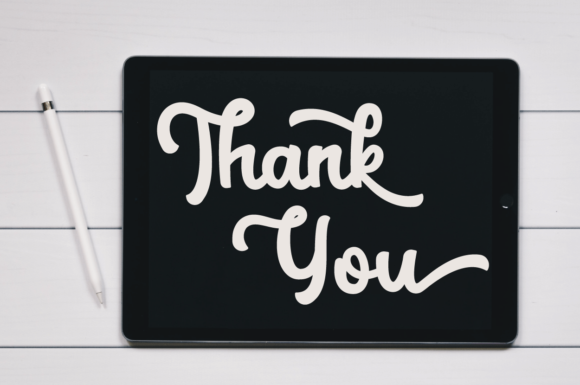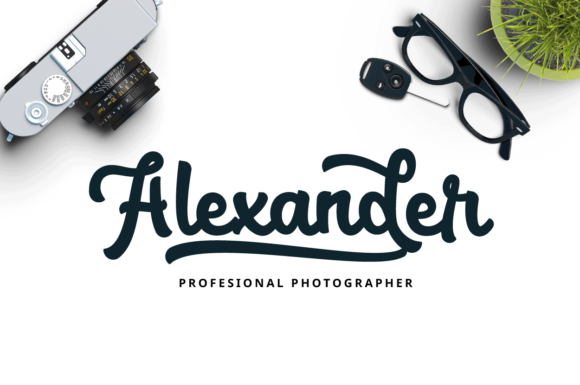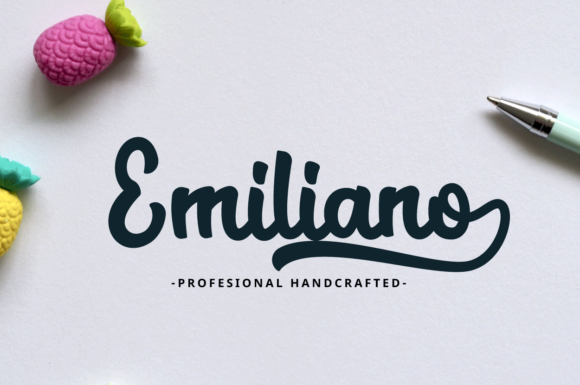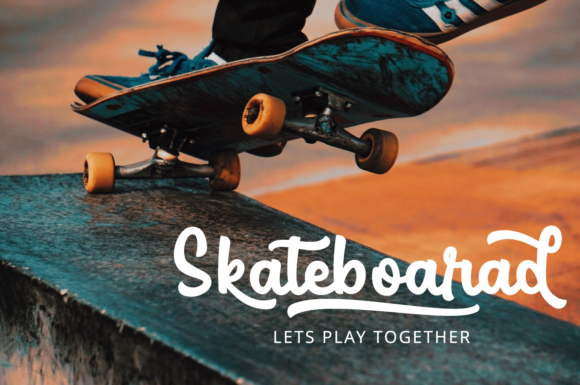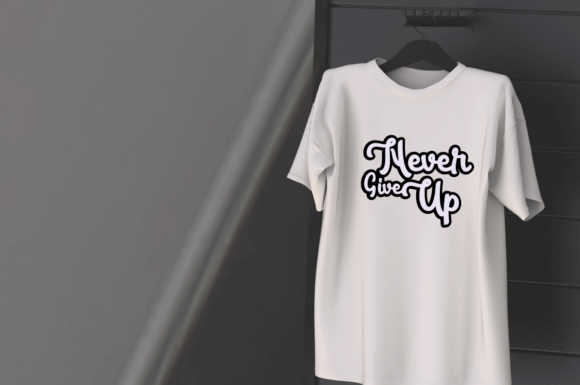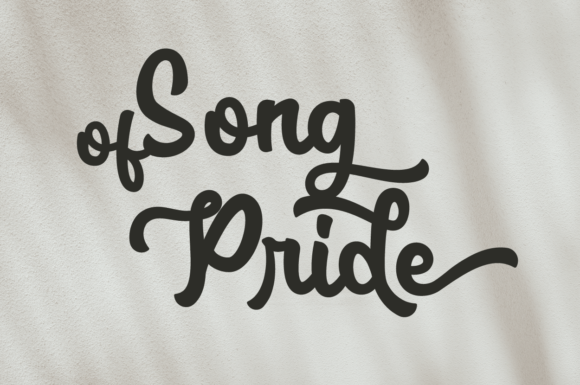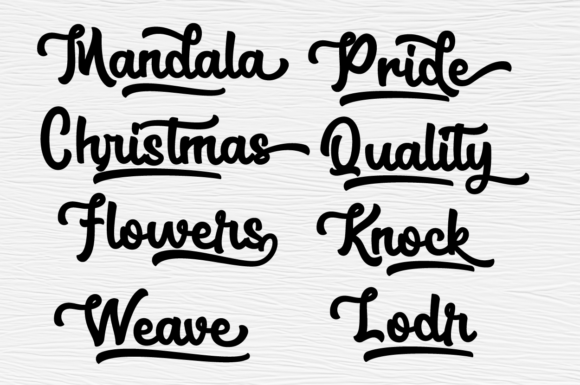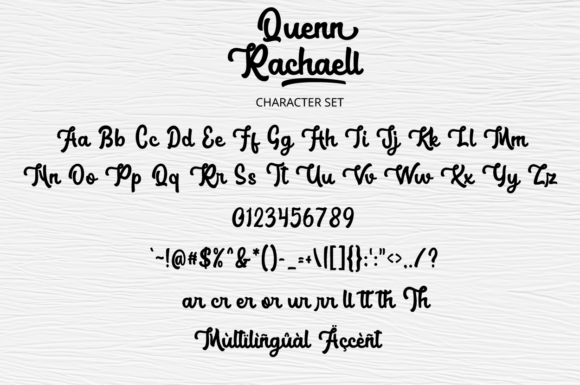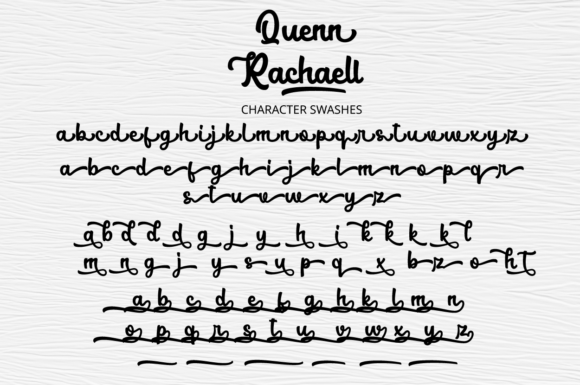
Quenn Rachaell Font
About Quenn Rachaell Font
Quenn Rachaell is a beautiful, well balanced and vintage styled script font. It is defined by smooth curves and is perfect for fashion branding or editorial designs. Quenn Rachaell is PUA encoded which means you can access all glyphs and swashes with ease!